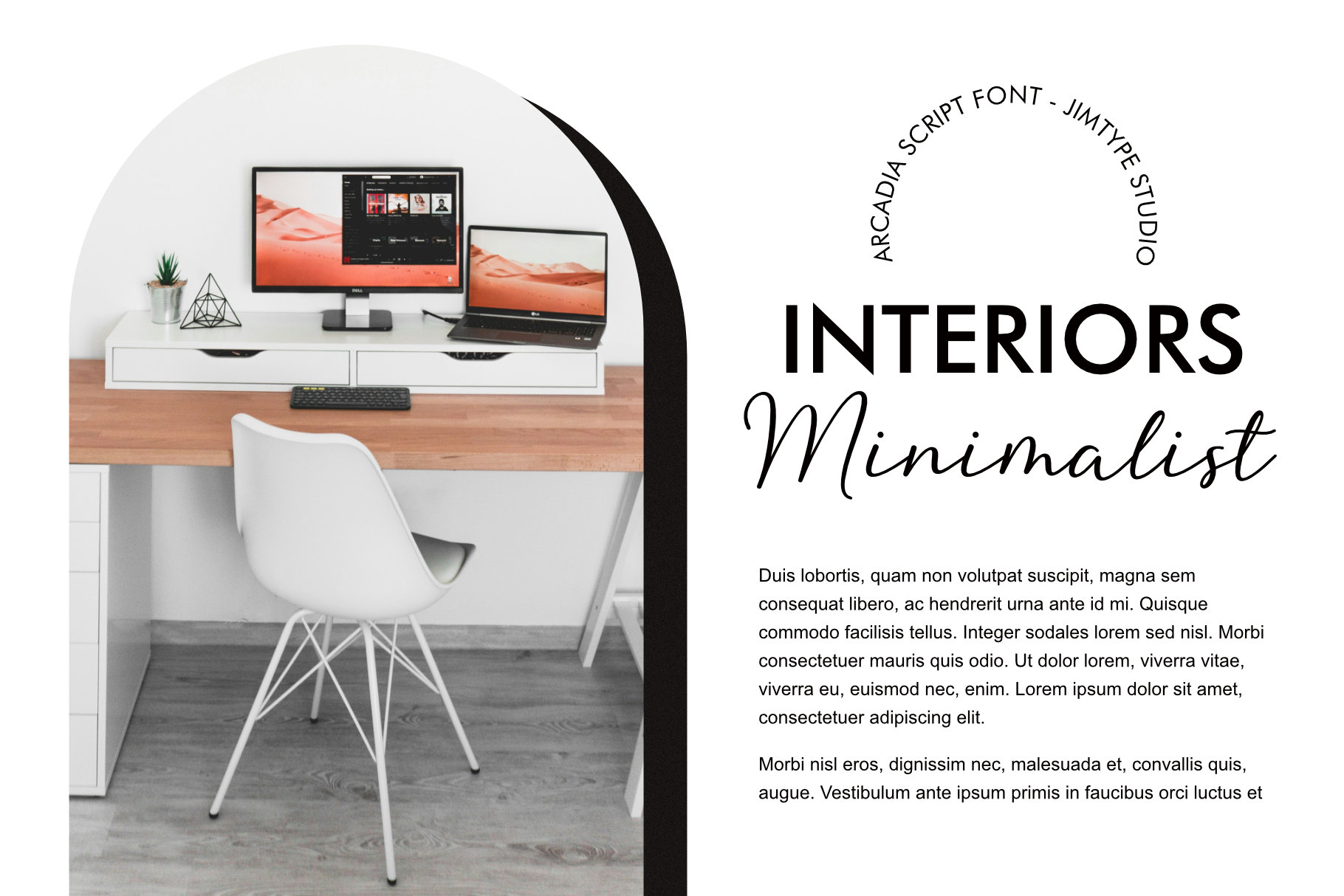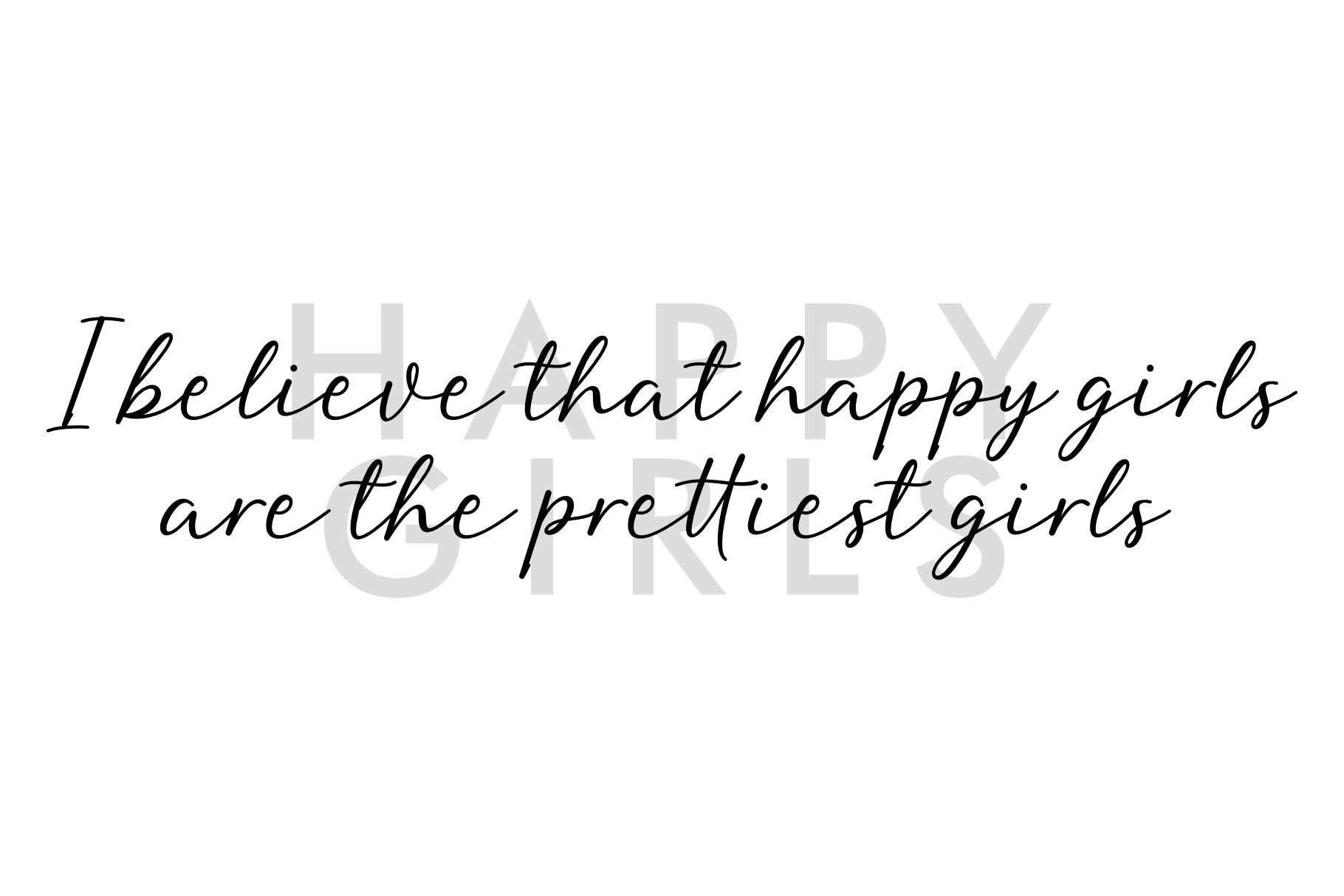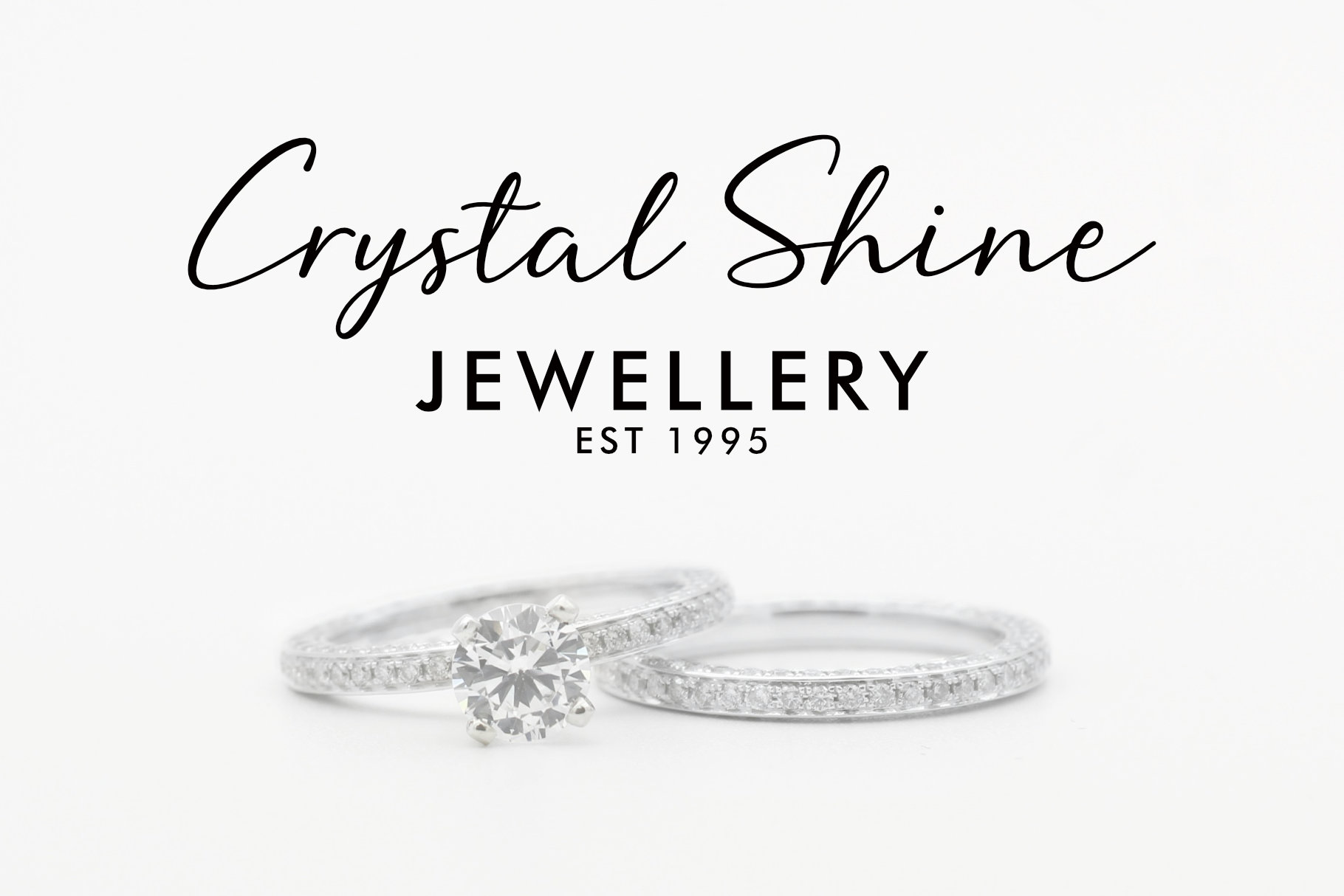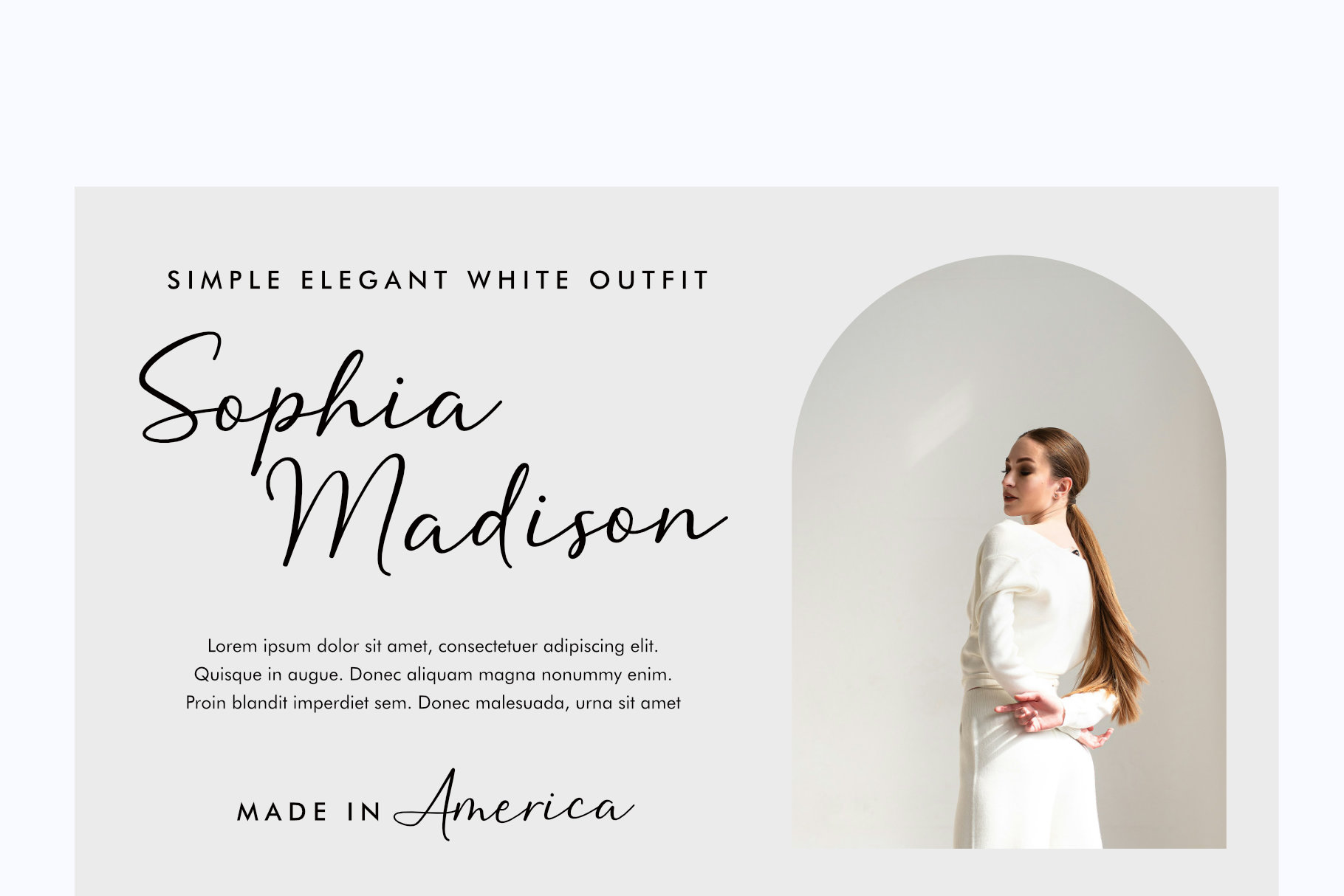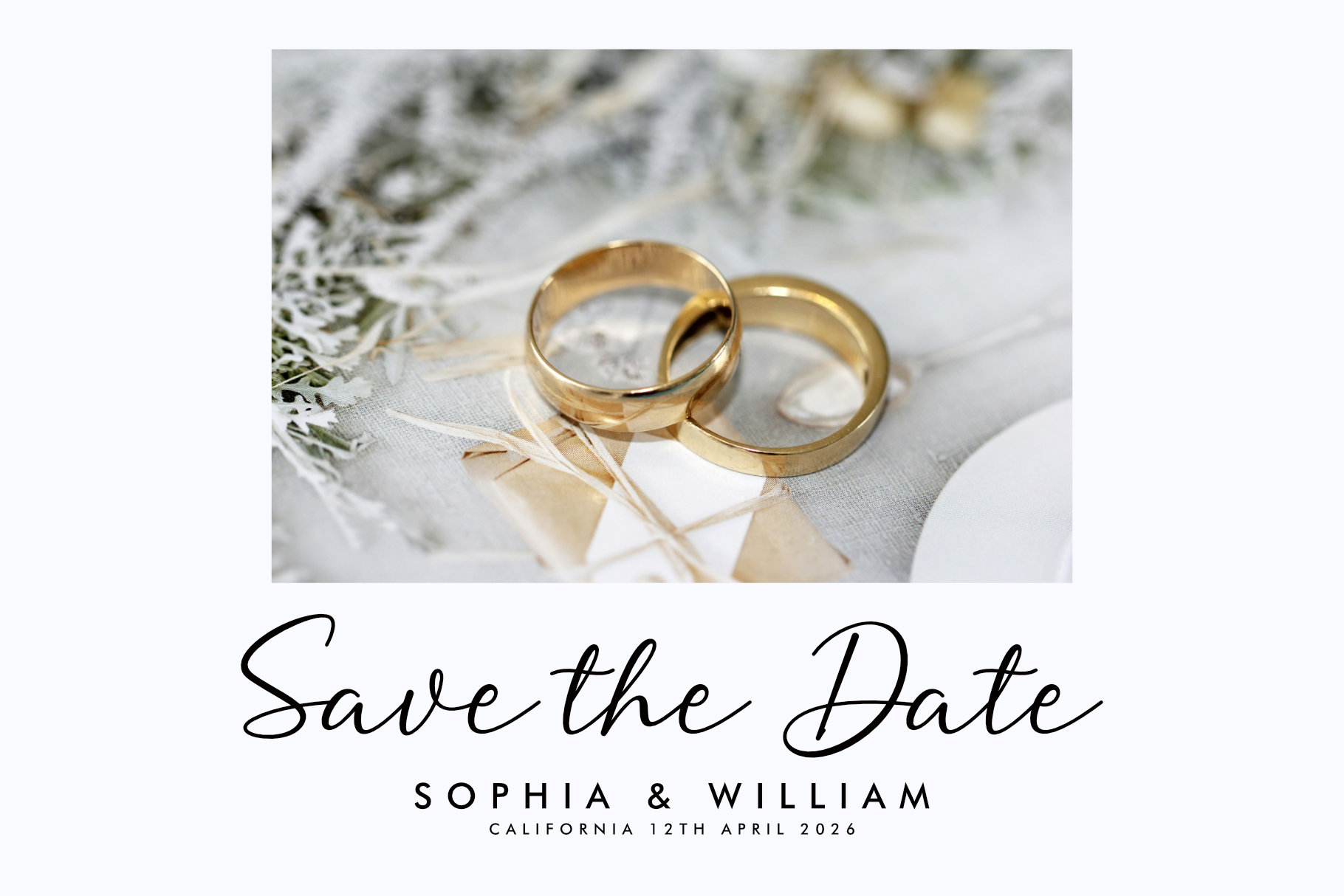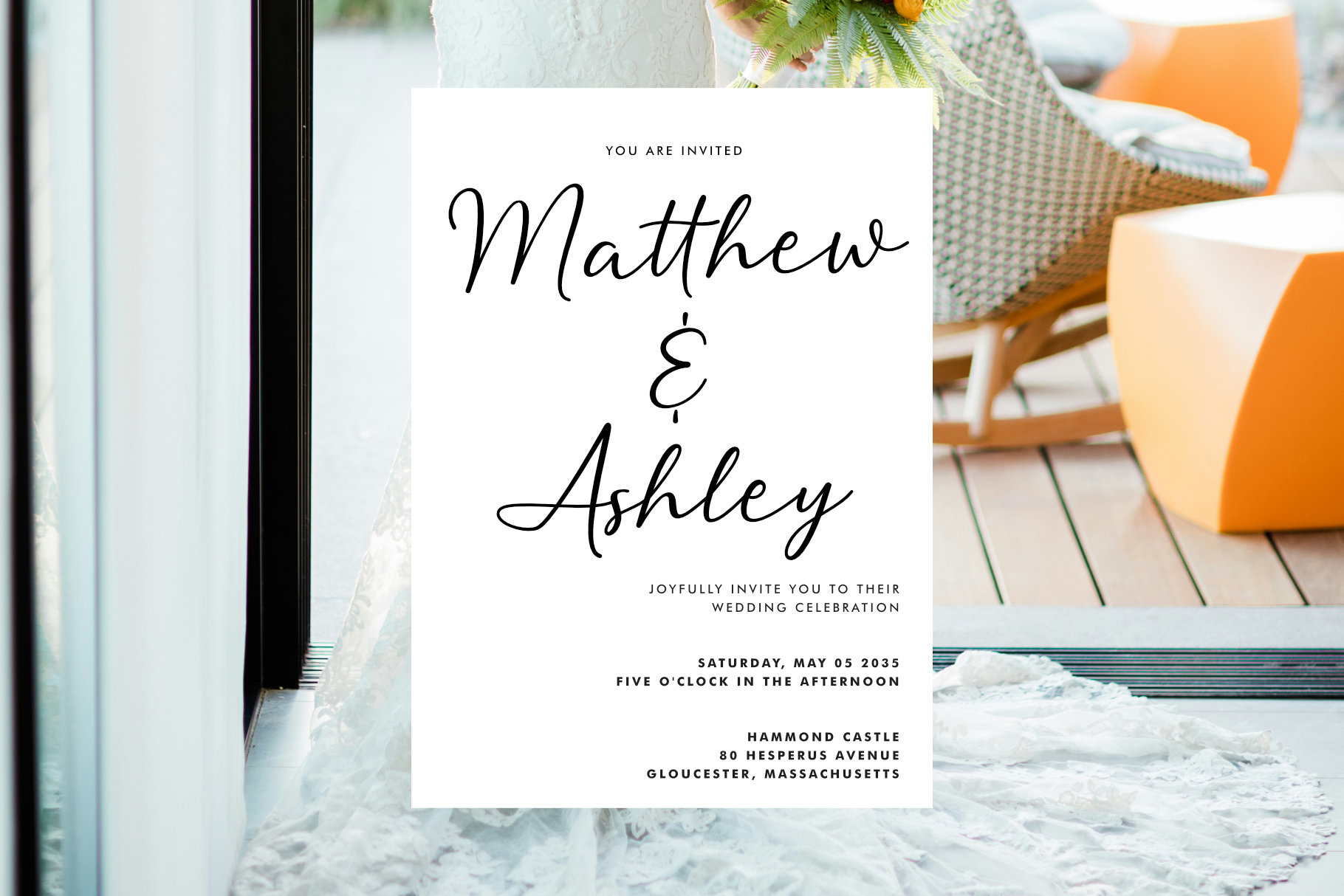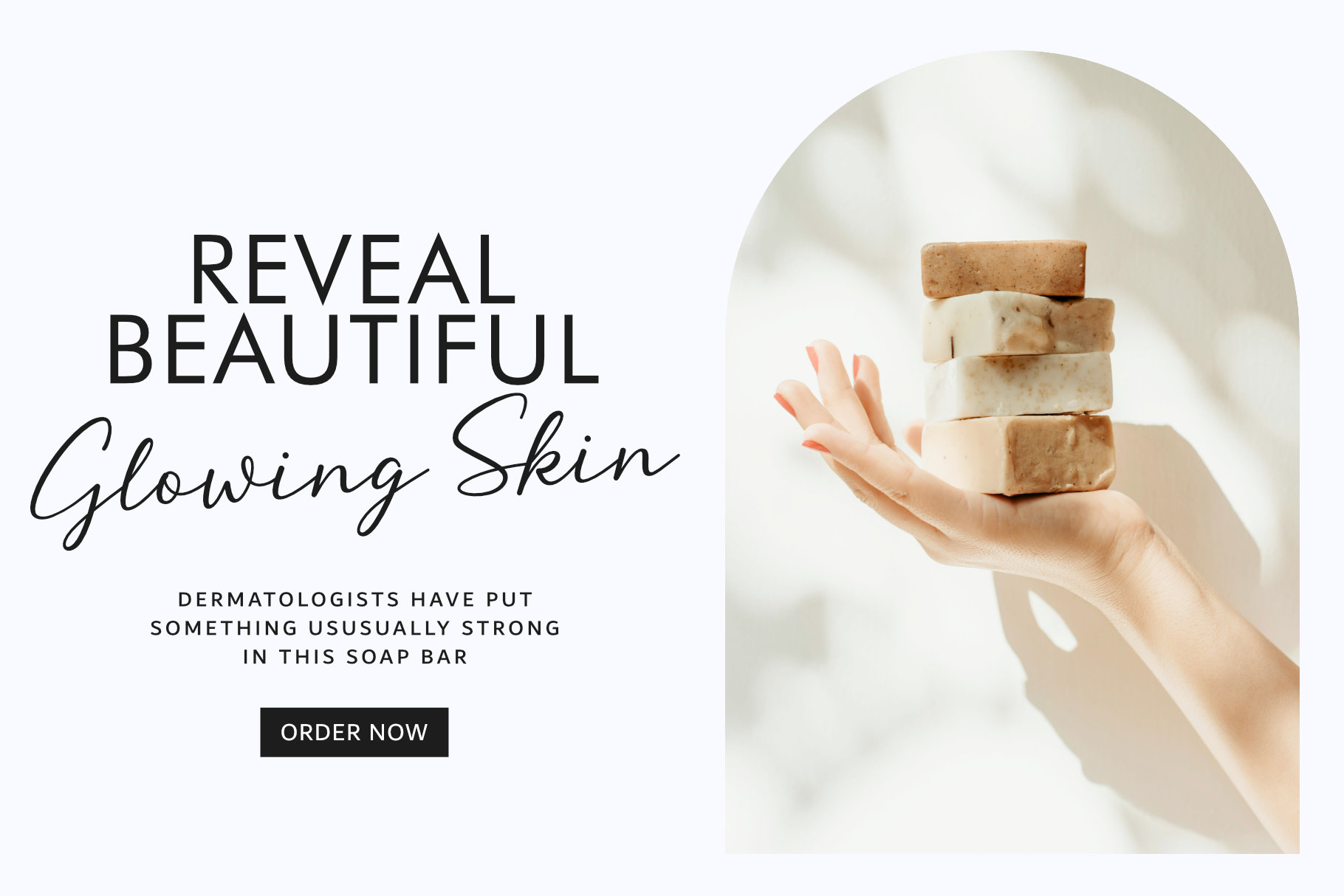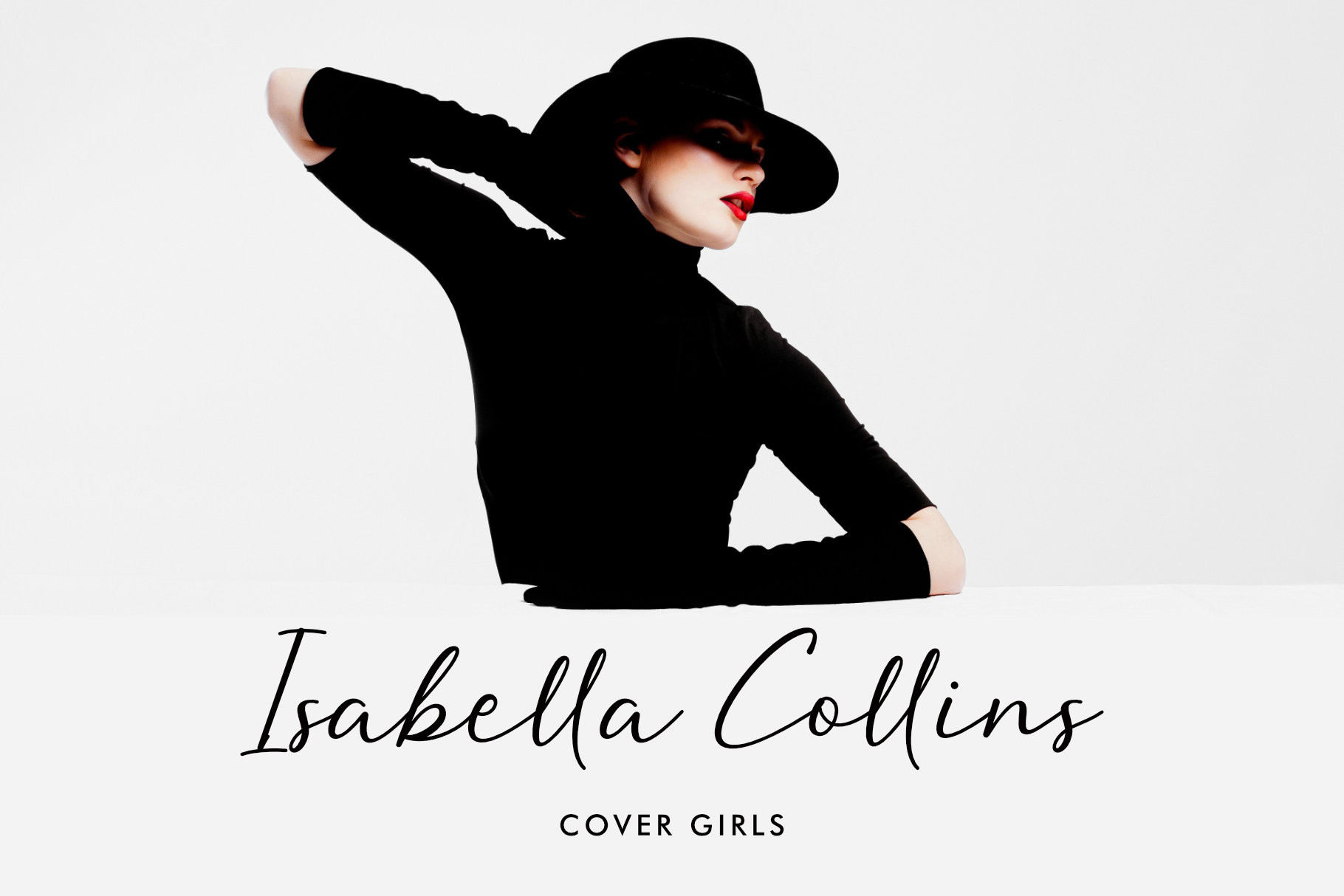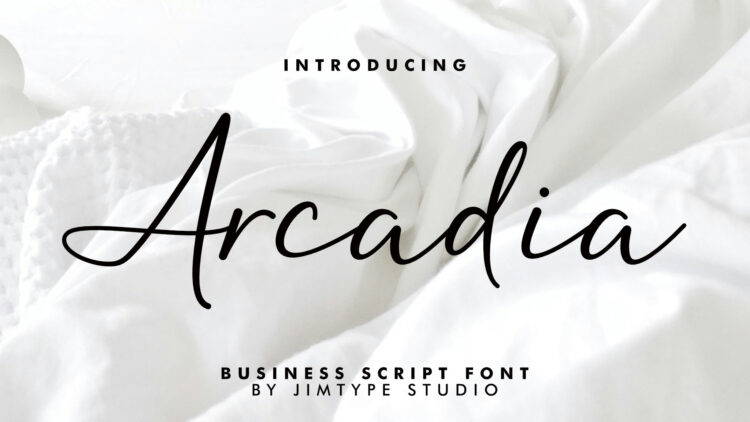
Arcadia – Business Branding Script Font
Arcadia new script font that comes very elegant and classy to enhance your branding. With very smooth curves and silky smooth edges. Arcadia is perfect for adding a classy and modern touch to your project.
The Arcadia font is perfect for branding, social media, product design, advertising and weddings. Arcadia Font is a complete solution for projects that demand elegance and class. Whether for branding, social media, product design, advertising or weddings, this font ensures your designs shine with elegance and class.